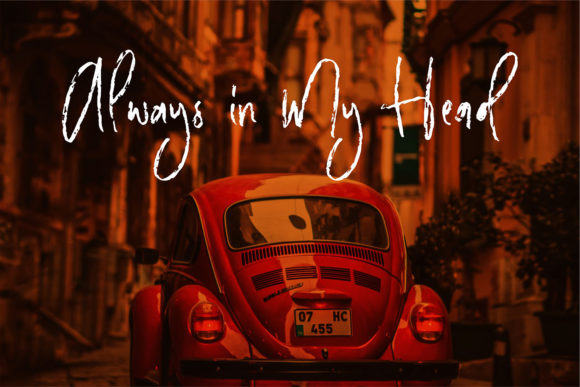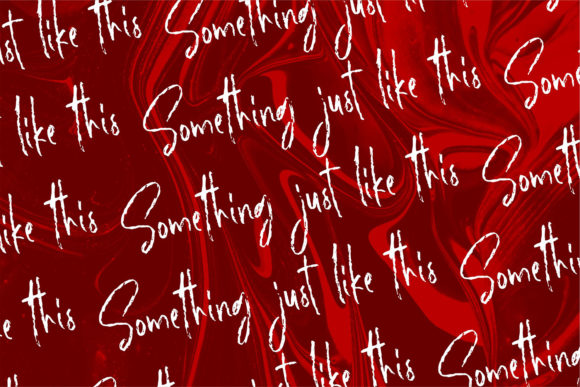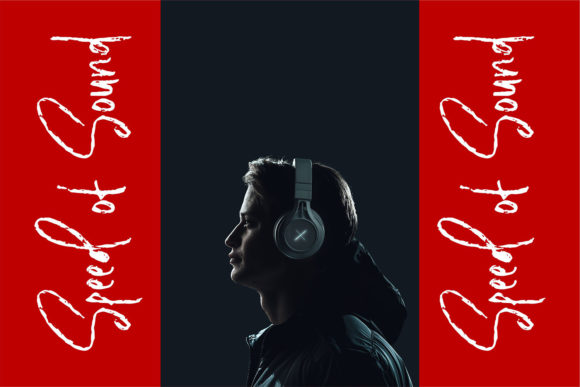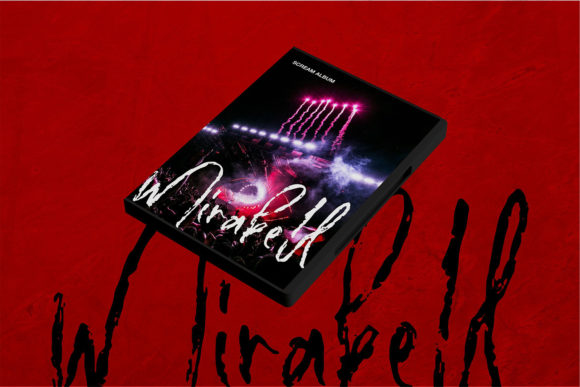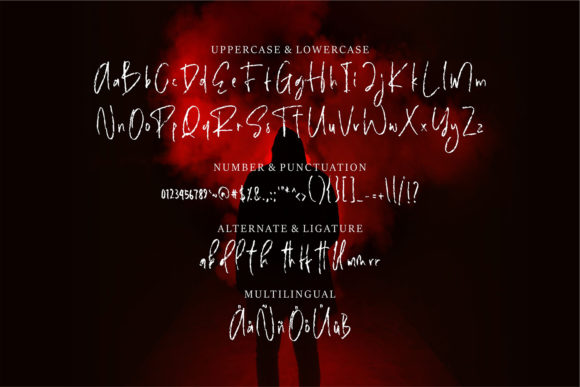
Roddeo Font
About Roddeo Font
Roddeo is a relaxed and incredibly unique handwritten font. It looks beautiful on a variety of designs requiring a personalized style, such as wedding invitations, thank you cards, weddings, greeting cards, logos and so on.